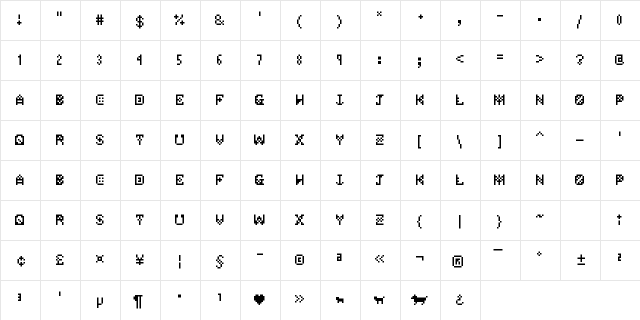
JetpackJoe Medium
Design Context for JetpackJoe Typeface
JetpackJoe takes a measured approach to typography — its balanced proportions and neutral character make it a reliable workhorse for both digital and print work.